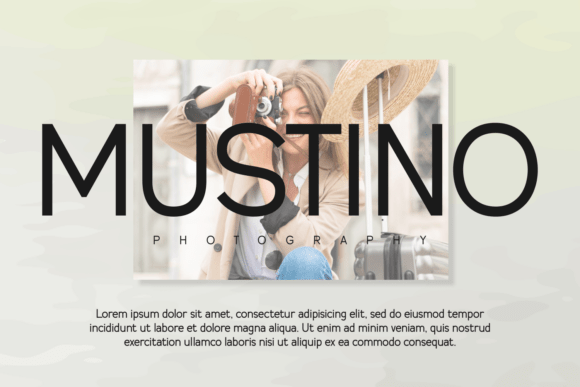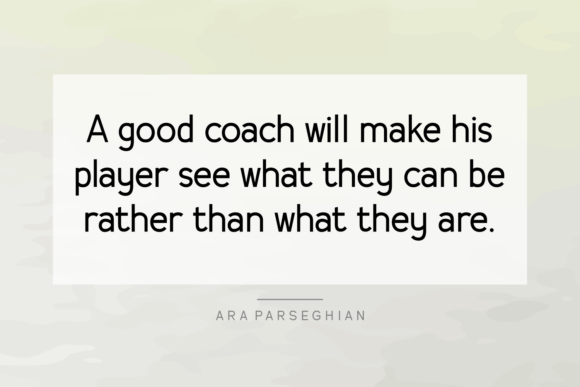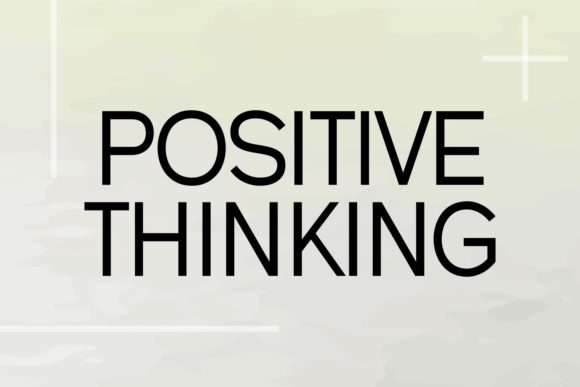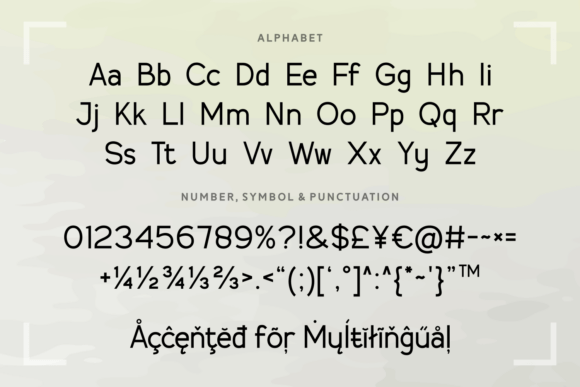
Introduction to Great Coach Font
A promotional image for “Great Coach,” an elegant sans serif font.
As its name suggests, the font’s clear, modern, and authoritative style is perfect for corporate branding, presentations, and sports-related themes, making it particularly timely for the “back-to-school” and “back-to-business” season .
Key Features of Great Coach Font